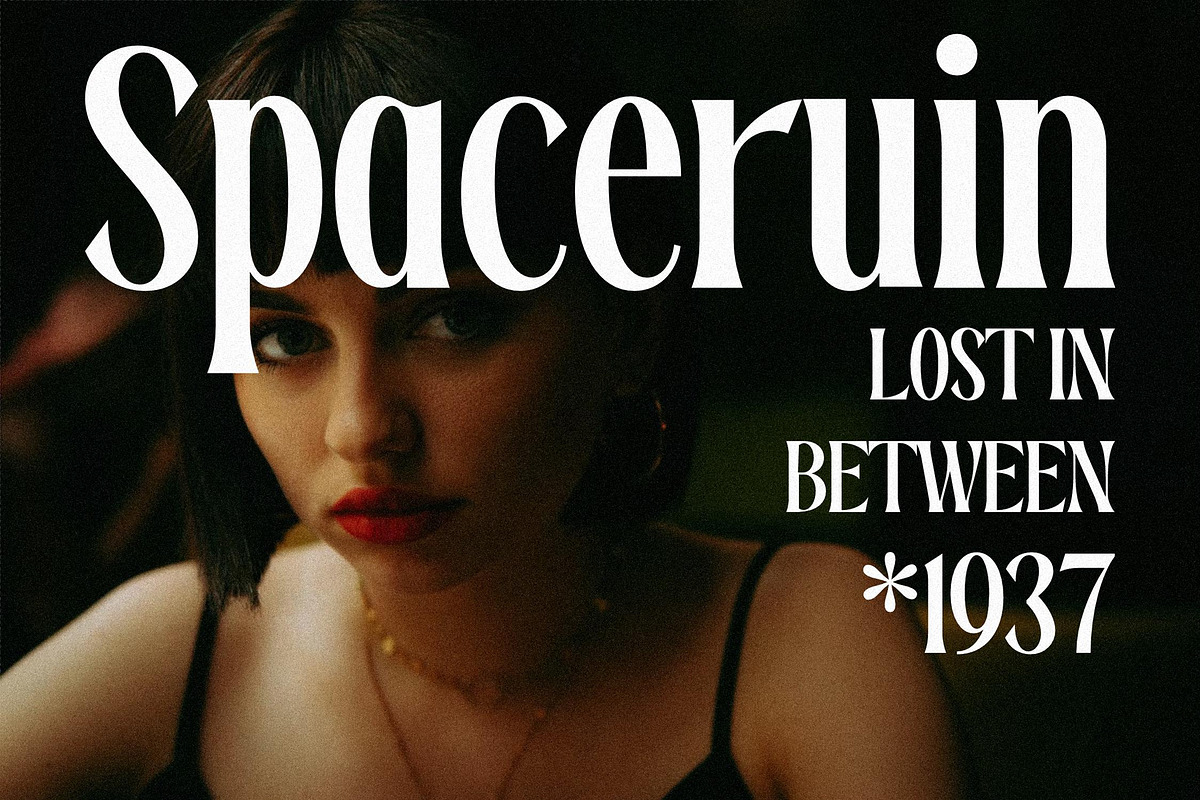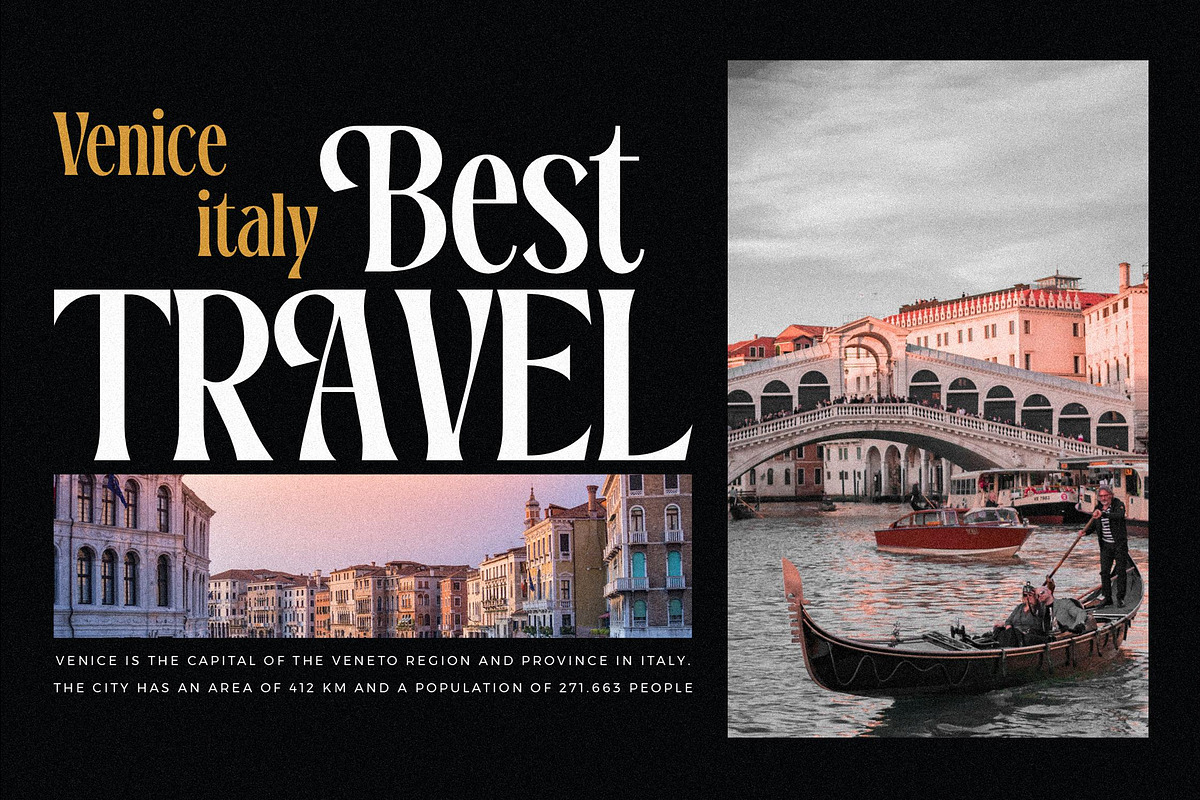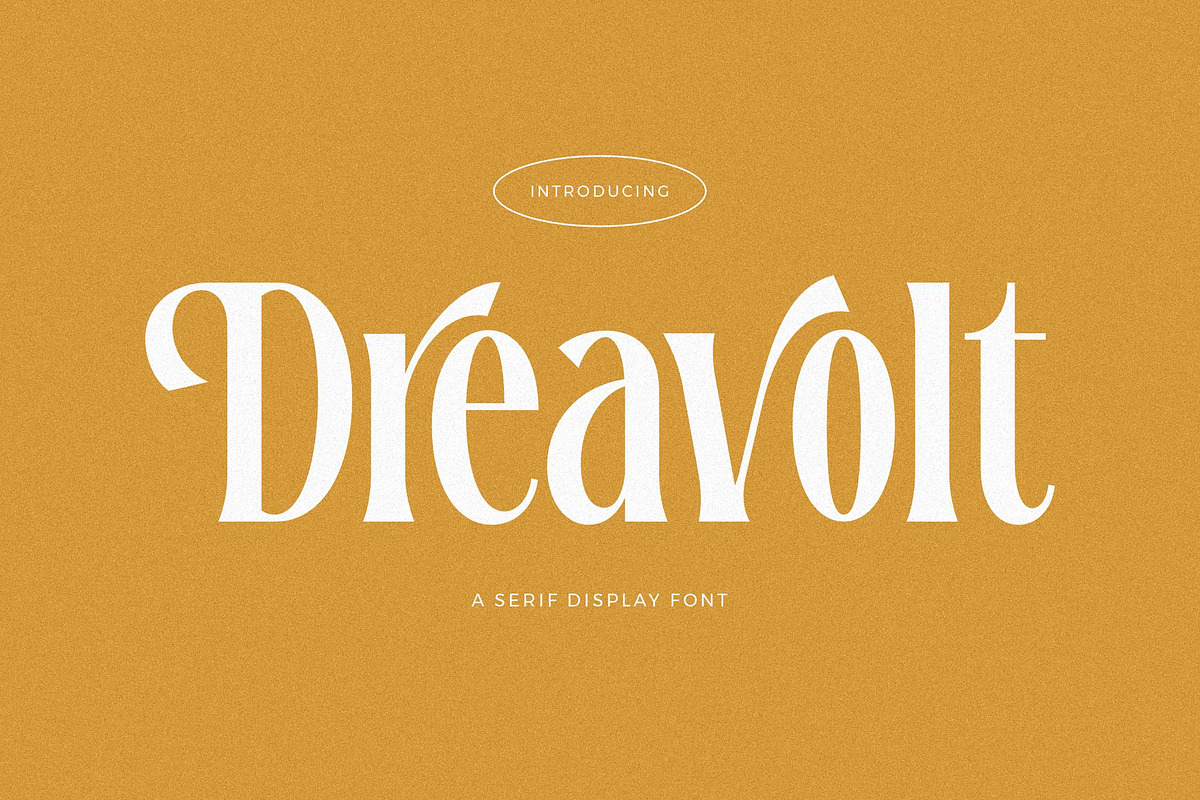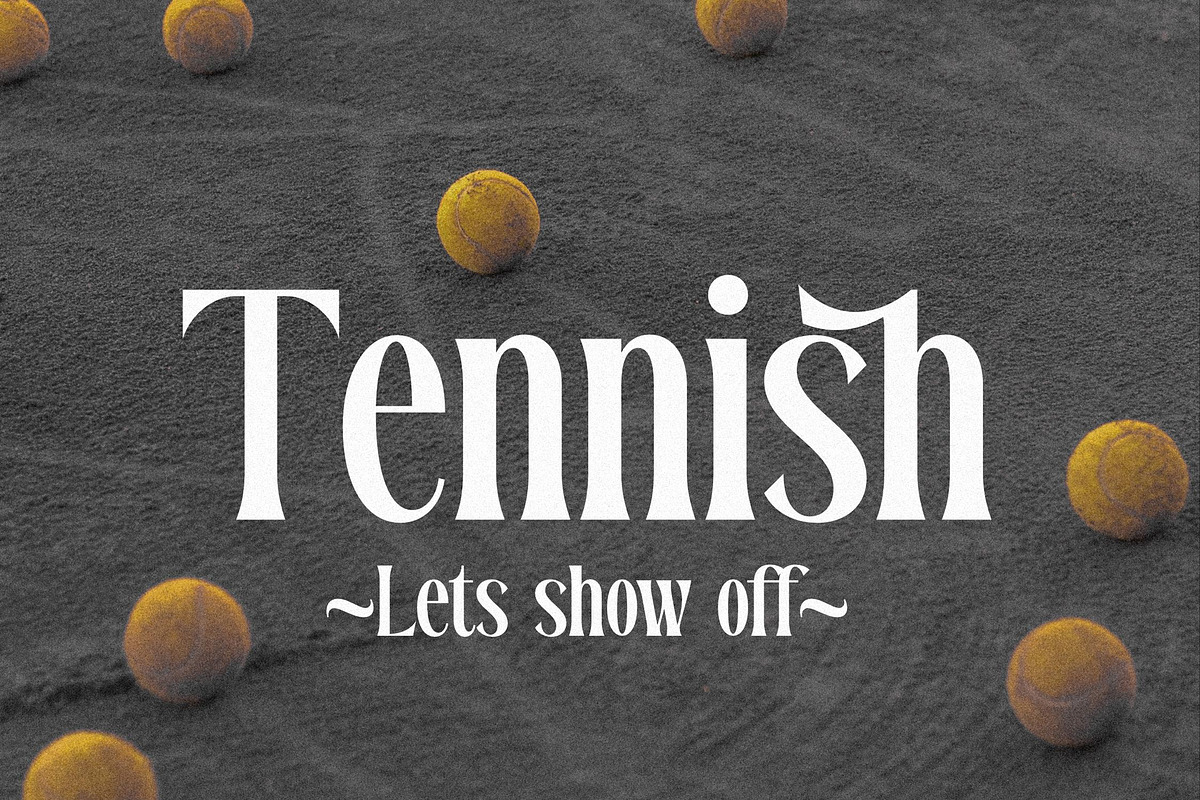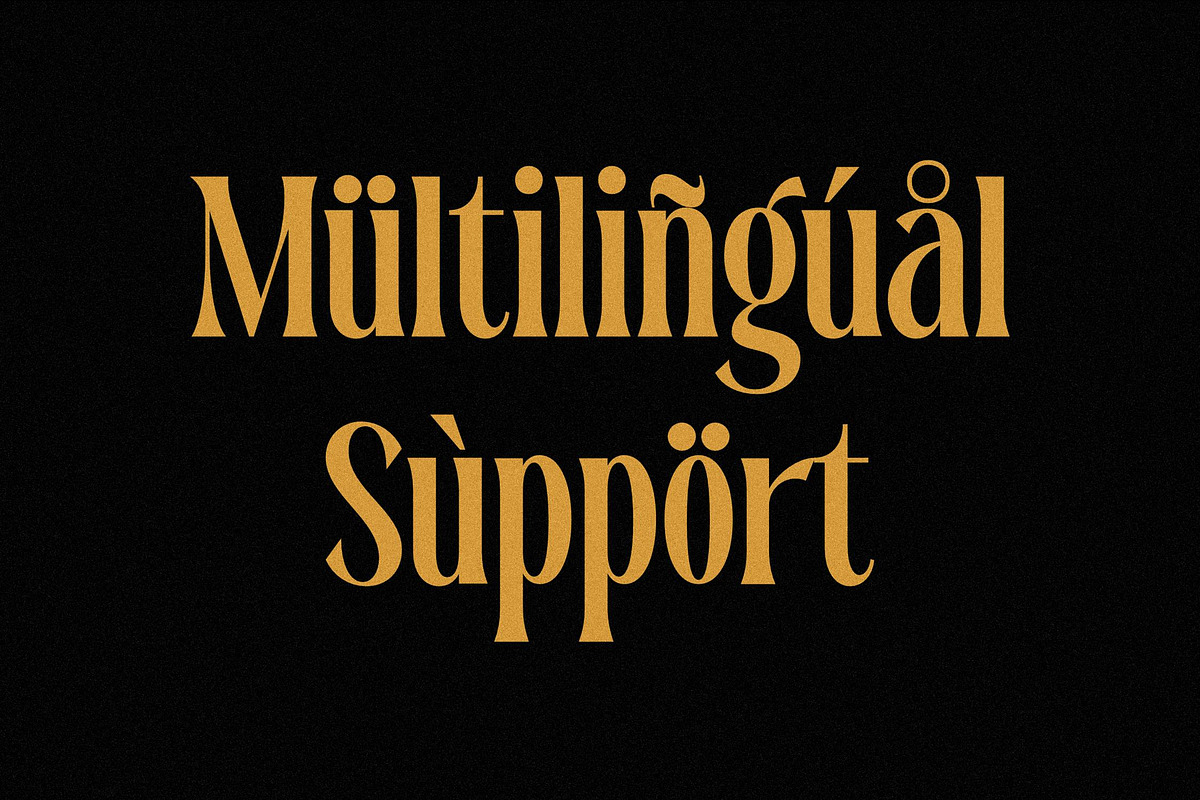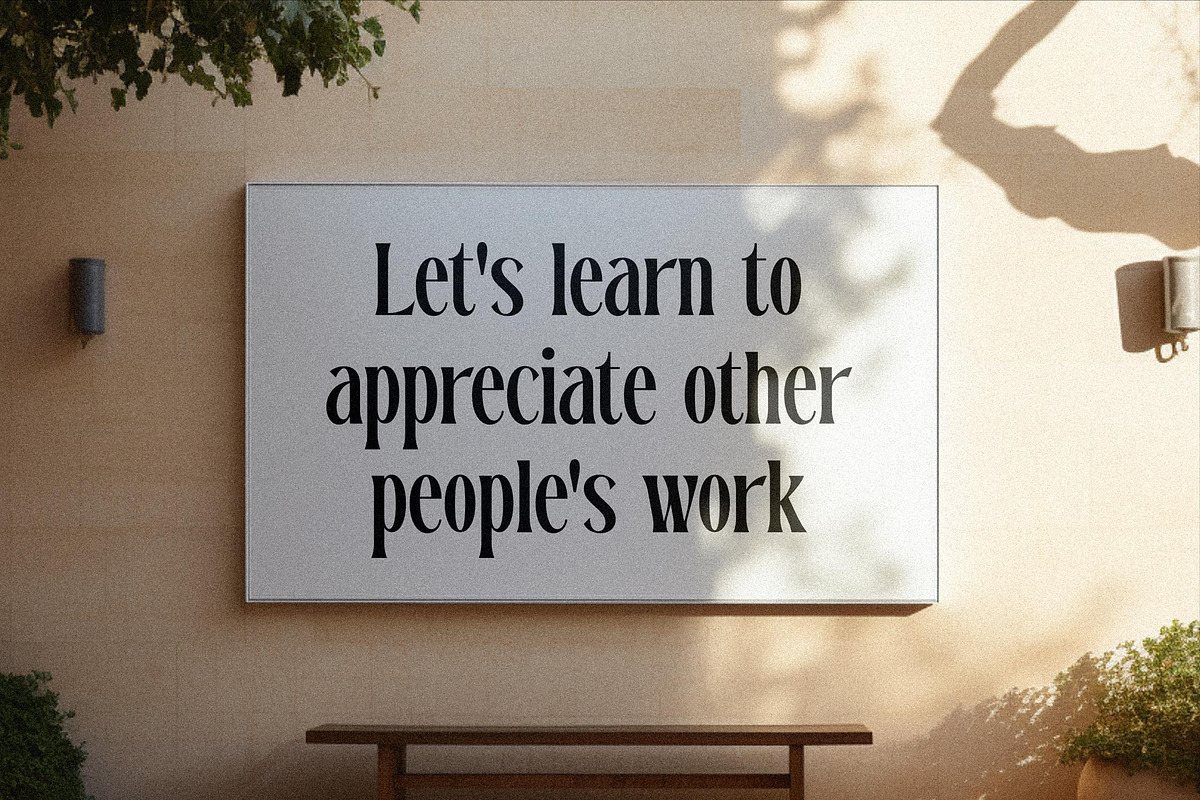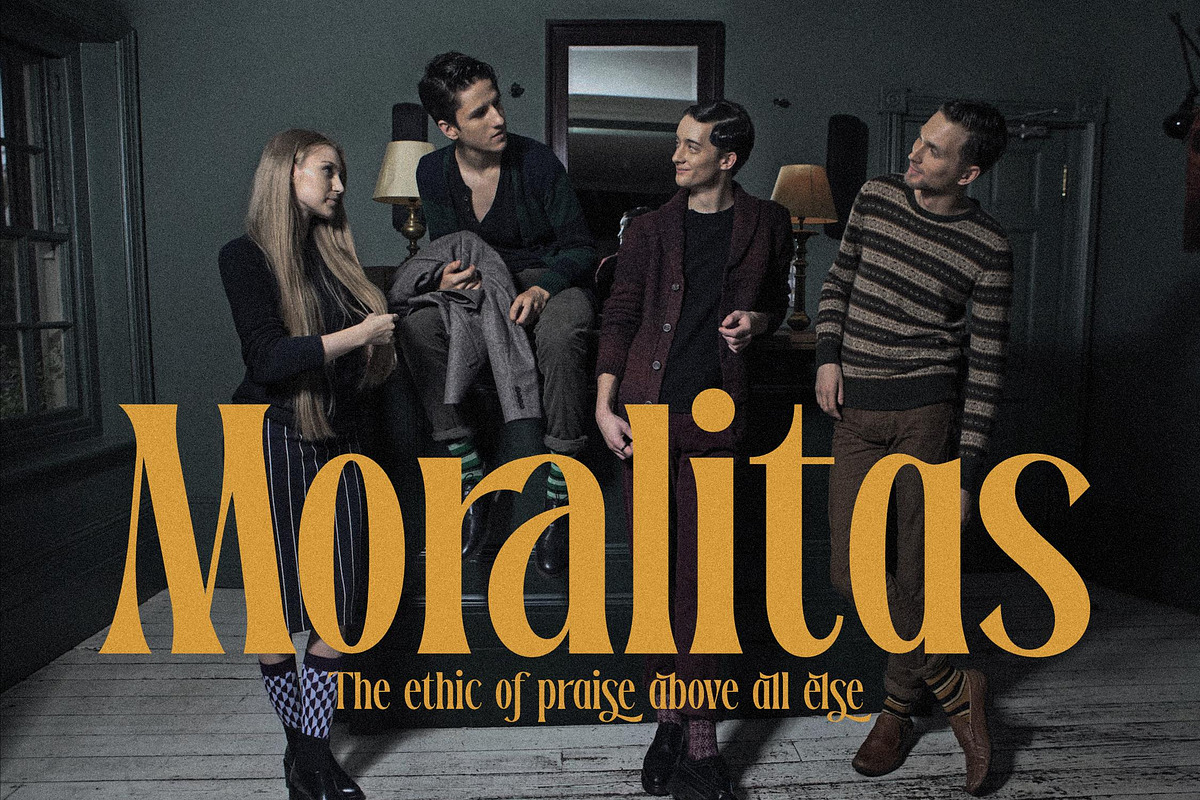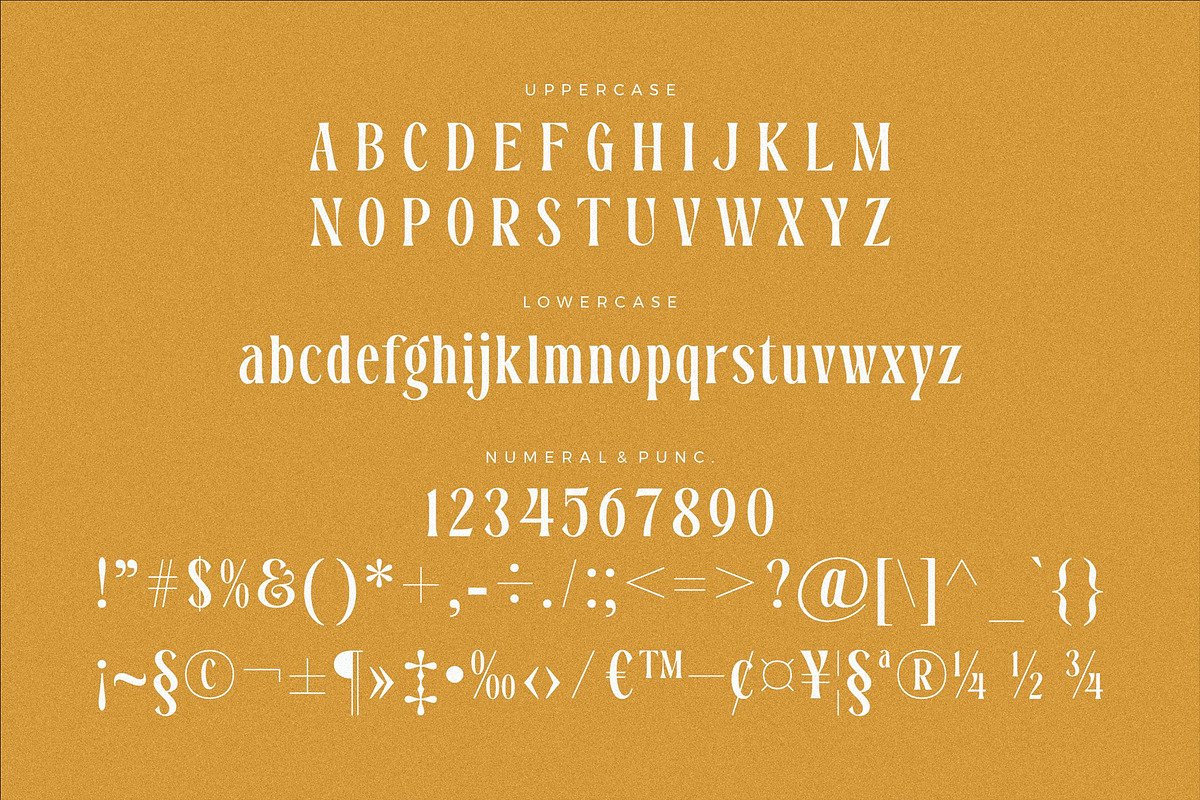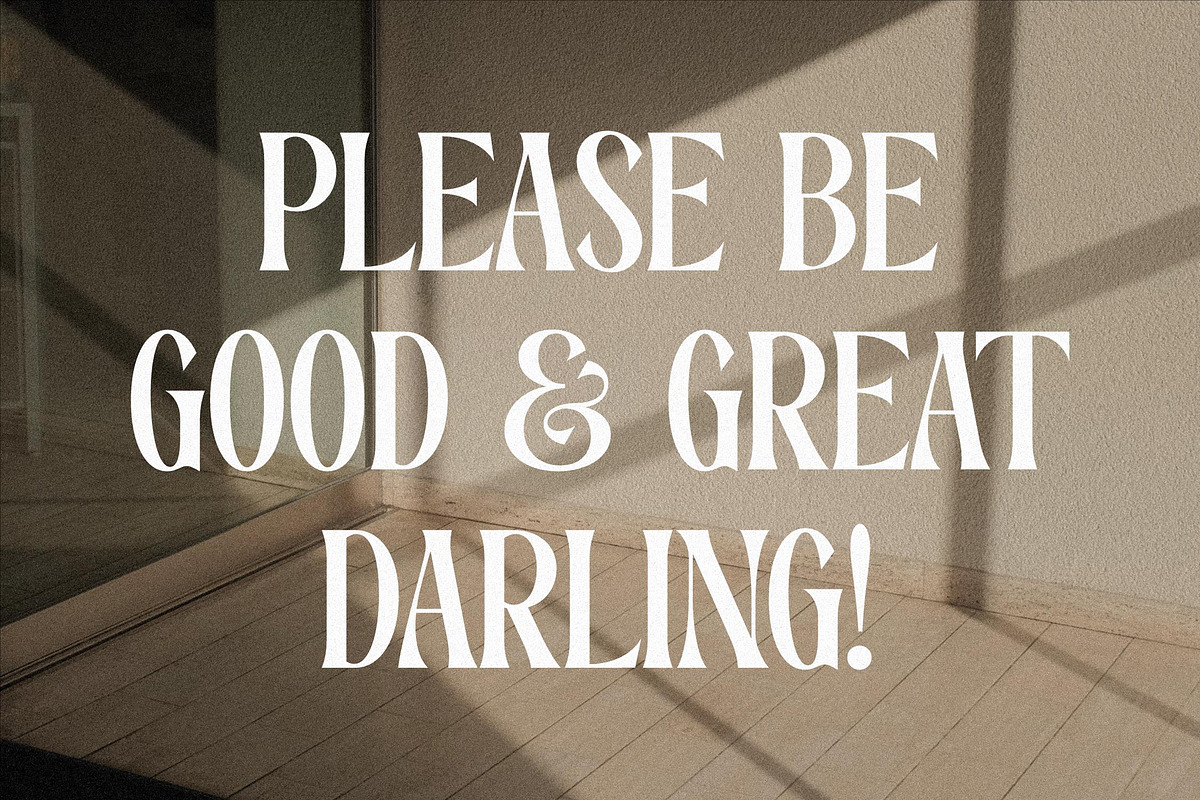
Dreavolt A Serif Display Font
Proudly present Dreavolt Typeface , created by Storytype, A serif modern and classic typeface that has own unique style & modern look. This typeface is perfect for an elegant & luxury logo, book or movie title design, fashion brand, magazine, clothes, lettering, quotes, and so much more.